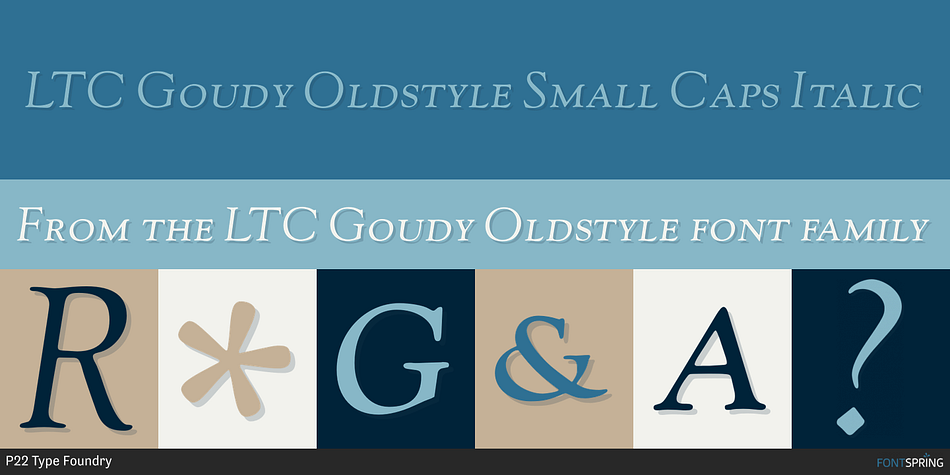
LTC Goudy Oldstyle Small Caps Italic
Designed by Frederic W. Goudy, LTC Goudy Oldstyle is a script and serif font family. This typeface has twelve styles and was published by P22 Type Foundry.
This classic Frederic Goudy design was originally made for American Type Founders in 1915. When Goudy became the type director of Lanston Monotype, many of his designs were adapted and expanded for the Monotype machines. The Lanston Monotype offering of 1930 featured the option of long descenders for smaller sizes. This digital version features the long descenders by default.
The new OpenType version allows for the option of long or short descenders and many other alternates.
Foundry P22 Type Foundry
Designer Frederic W. Goudy